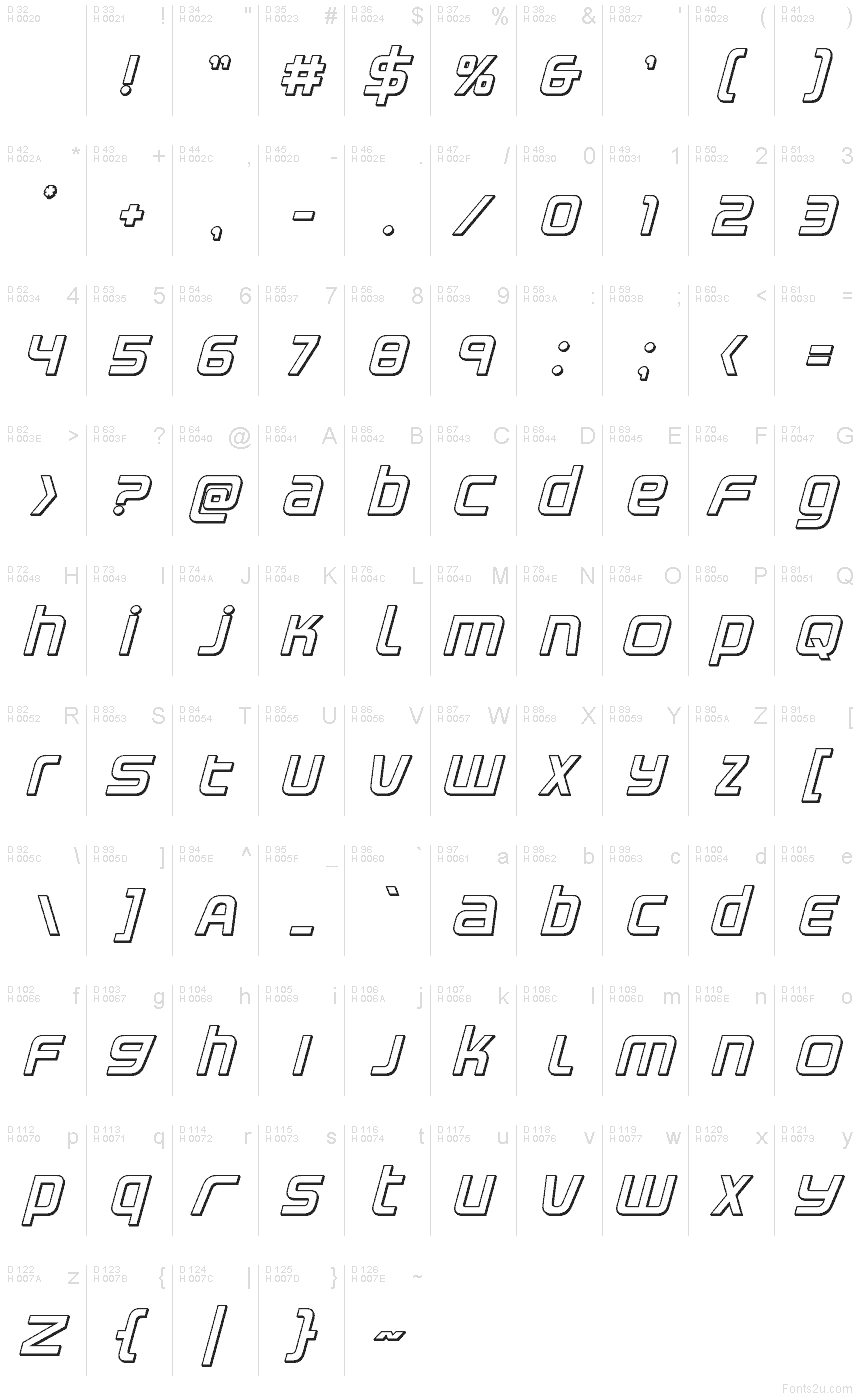
Iconoplastic 3D Italic
Iconoplastic 3D Italic font by Iconian Fonts is a free 3D italic futuristic display font. Part of the Iconoplastic family, it leans forward with a sleek aerodynamic slant, tubular contours, and a crisp inner bevel that fakes depth without bulk. The double-line construction feels chrome-slick and techy, giving headlines a light, fast, and engineered presence.
Using Iconoplastic 3D Italic, you’ll get punchy results for sci‑fi posters, game logos, esports branding, tech event titles, YouTube thumbnails, and interface splash screens. Its open counters and steady rhythm read clean at big sizes while still looking energetic. Pair this free font’s headlines with a neutral geometric sans for body text, and give it a touch of extra tracking to let the outlines breathe.